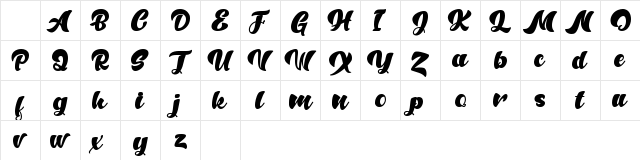
Complete Anthem of Narasi Regular glyph index. Displaying only characters natively supported by Anthem of Narasi Regular font.
Anthem of Narasi is a composed and adaptable typeface that performs quietly and consistently across a wide range of design contexts.